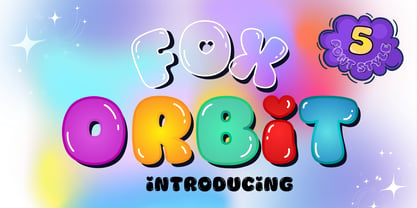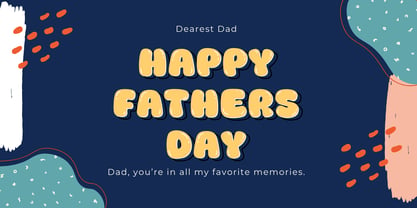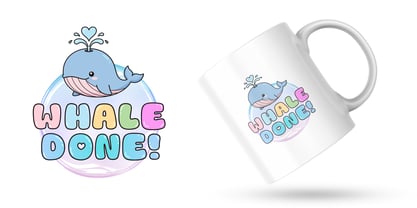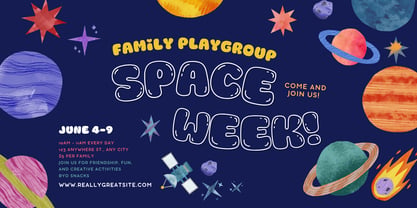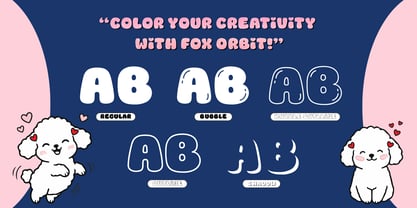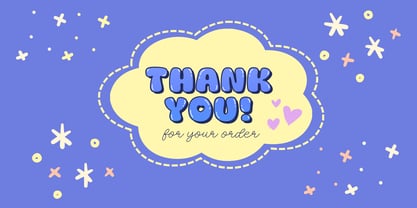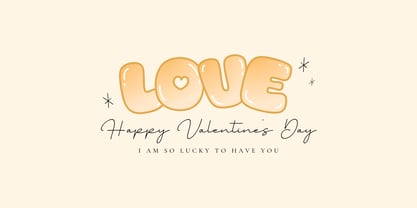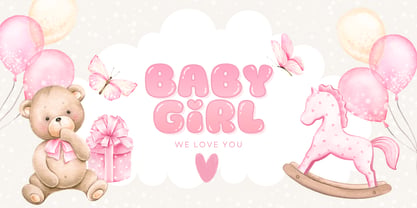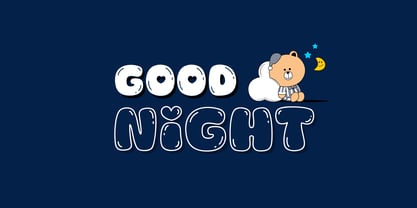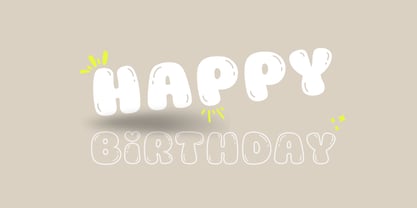
Fox Orbit
The Fox Orbit Font Family was designed by Rattana Rattanawan and published by Fox7. Fox Orbit contains 5 styles and family package options. More about this family
Fox Orbit - A Playful & Bubbly Display Font Family Give your designs a burst of joy and cosmic cuteness with Fox Orbit! This font is a delightful, bubbly display family designed to bring a soft, rounded, and friendly feel to any project. With its chunky letterforms and chubby and cute, Fox Orbit is perfect for creators who want their work to stand out with a touch of whimsy. 🌟 Perfect for: ✨ Cricut & Craft Projects: T-shirt designs, mugs (like the "Whale Done!" example!), and stickers. ✨ Branding: Logos for toy brands, pet shops, or bakeries. ✨ Social Media: YouTube thumbnails, Instagram quotes, and TikTok captions. ✨ Kids' Content: Birthday invitations, school posters, and book covers.